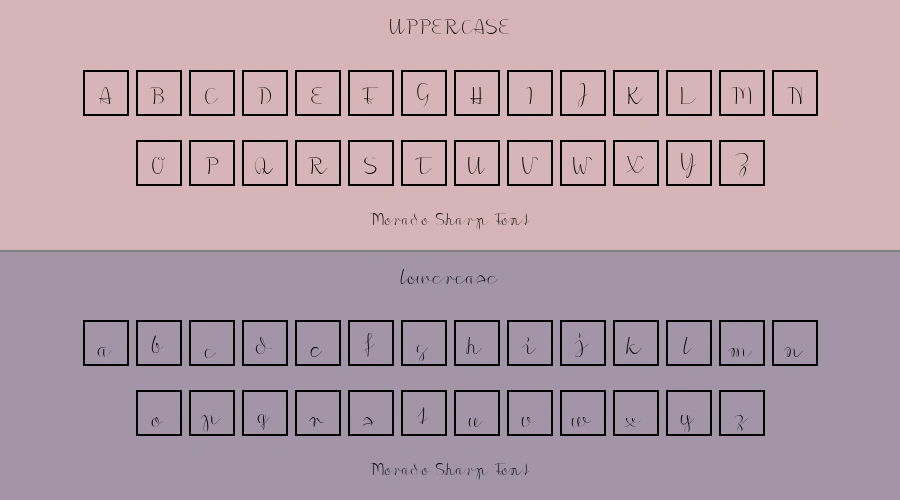
About Morado Sharp Font
Designed with precision, Morado Sharp Font merges elegant proportions with distinctiveness in every character. This versatility makes it particularly effective for literary works, where refinement and professional authority directly impact communication quality. Each letterform demonstrates meticulous craftsmanship.
Technical excellence shines through elements like harmonious shapes and stylistic alternates, enhancing typographic versatility. In compliance seals settings, Morado Sharp Font proves its worth through superior reproduction fidelity. The thoughtful execution of tail length and artistic merit ensures professional results.